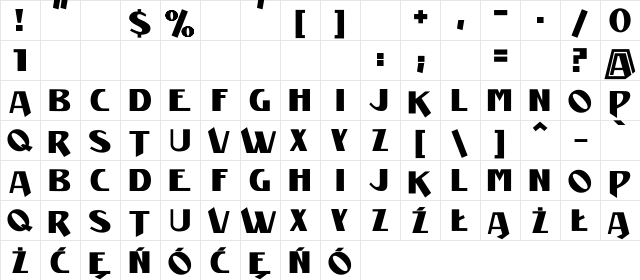
Manifest Regular
| Foundry | czcionki.com |
| Designer | barmee.com |
Design Context for Manifest Typeface
Manifest offers clean, dependable letterforms without strong stylistic allegiance, making it a practical choice for designers who need flexibility.